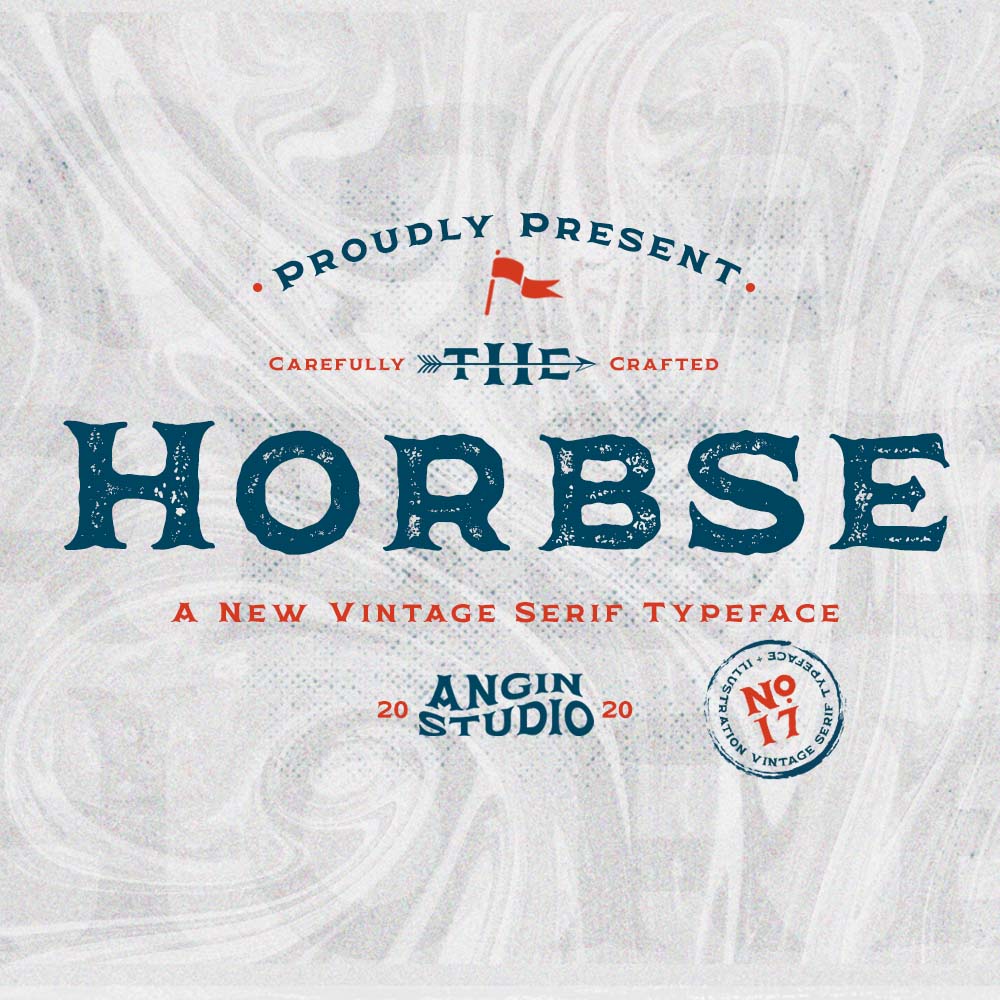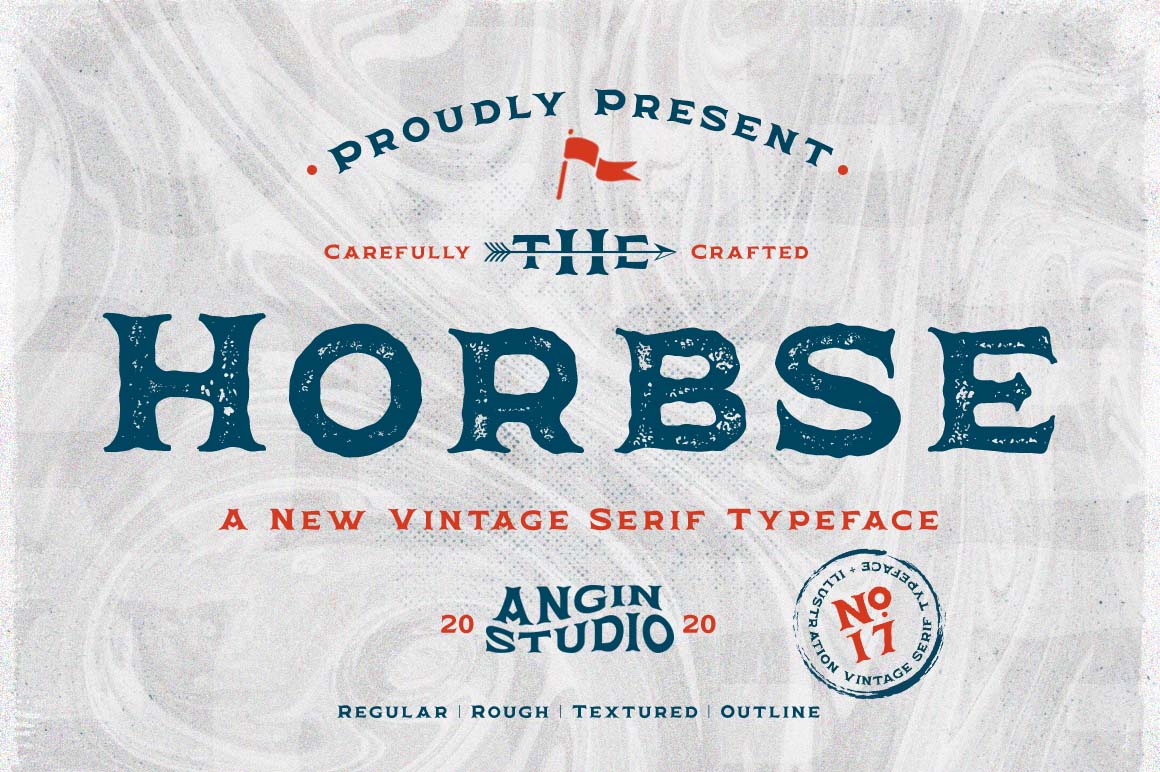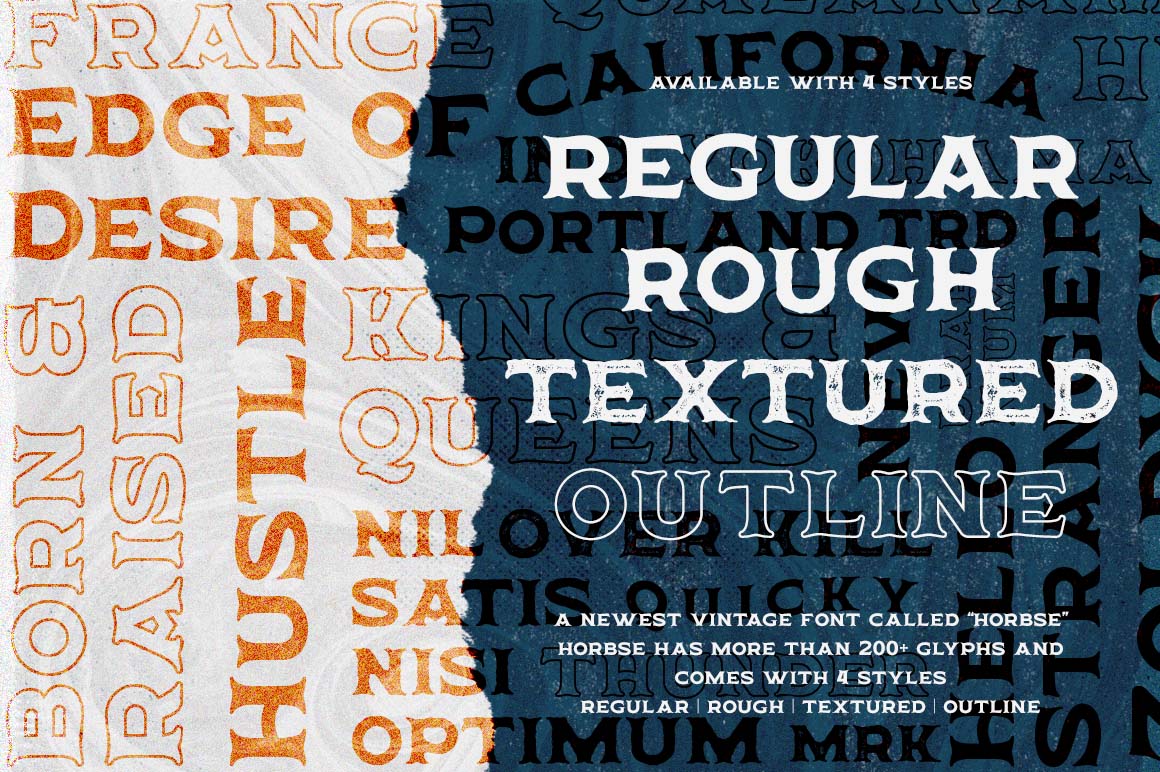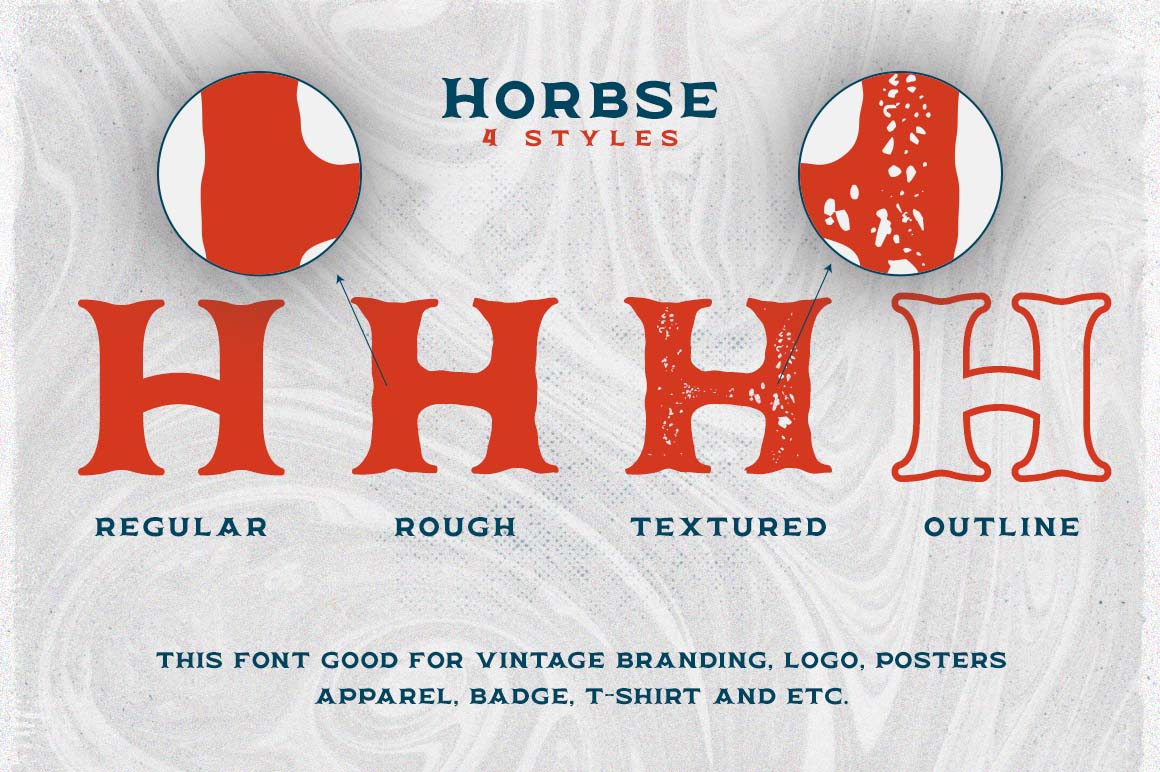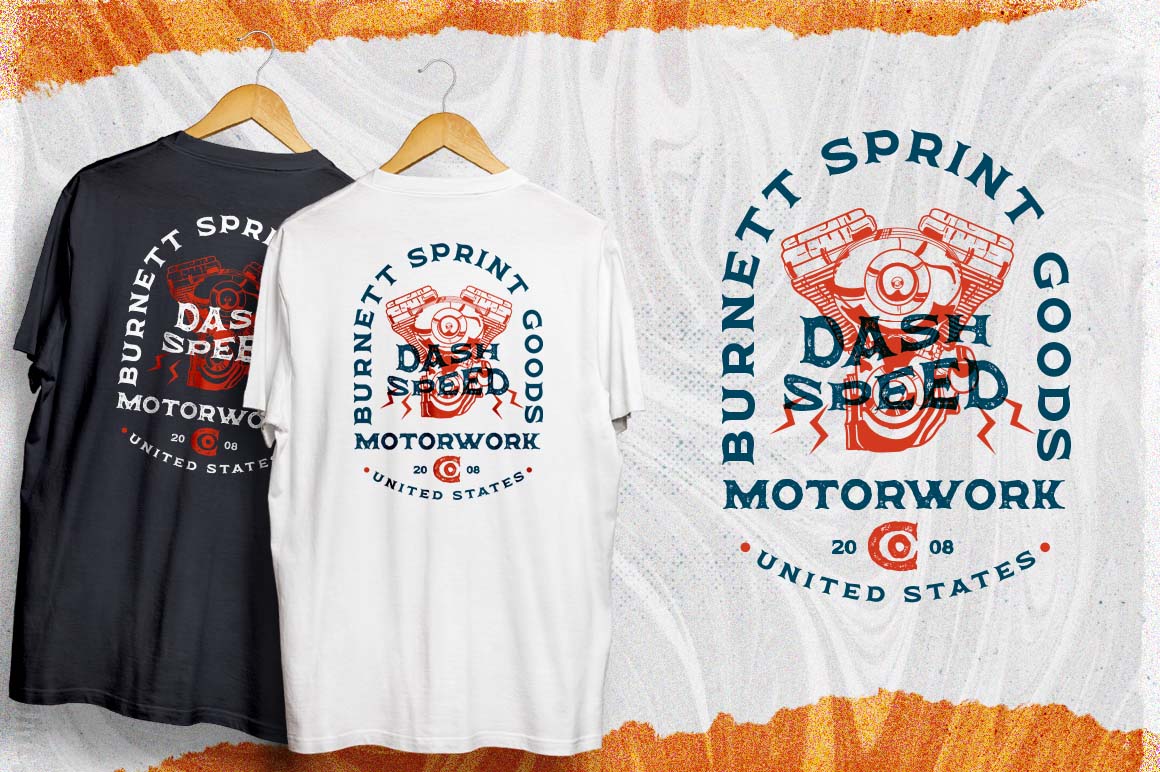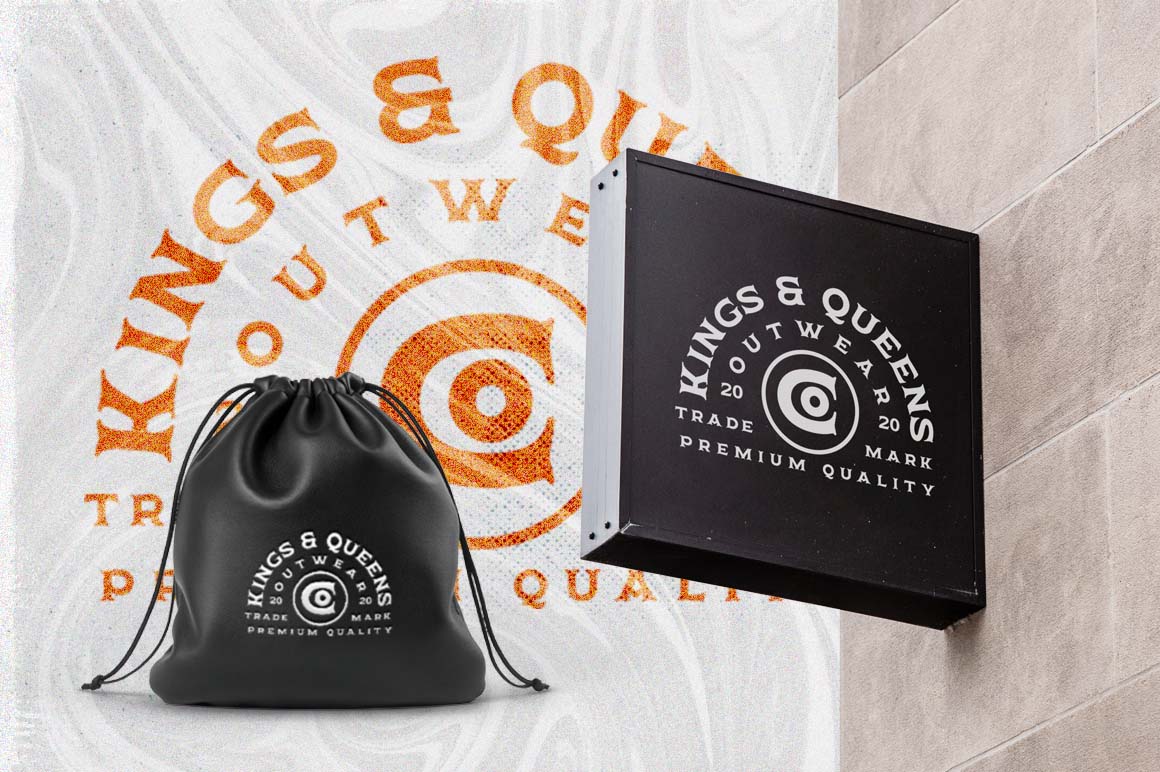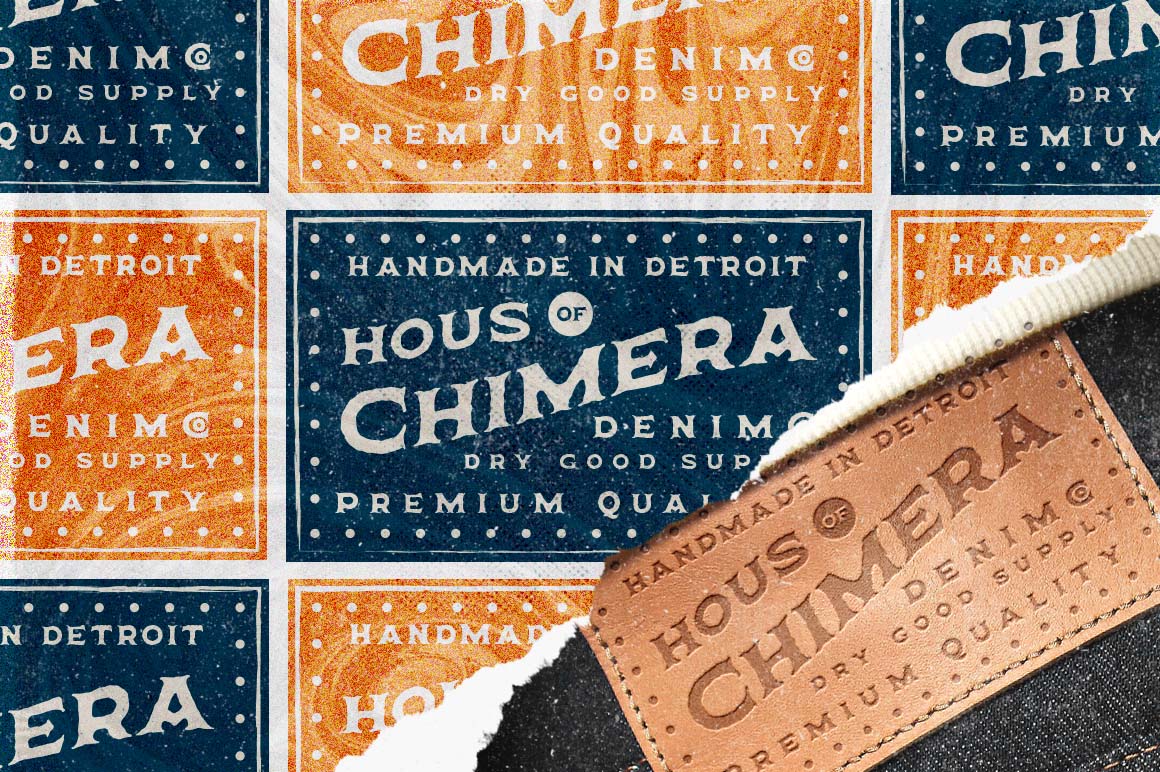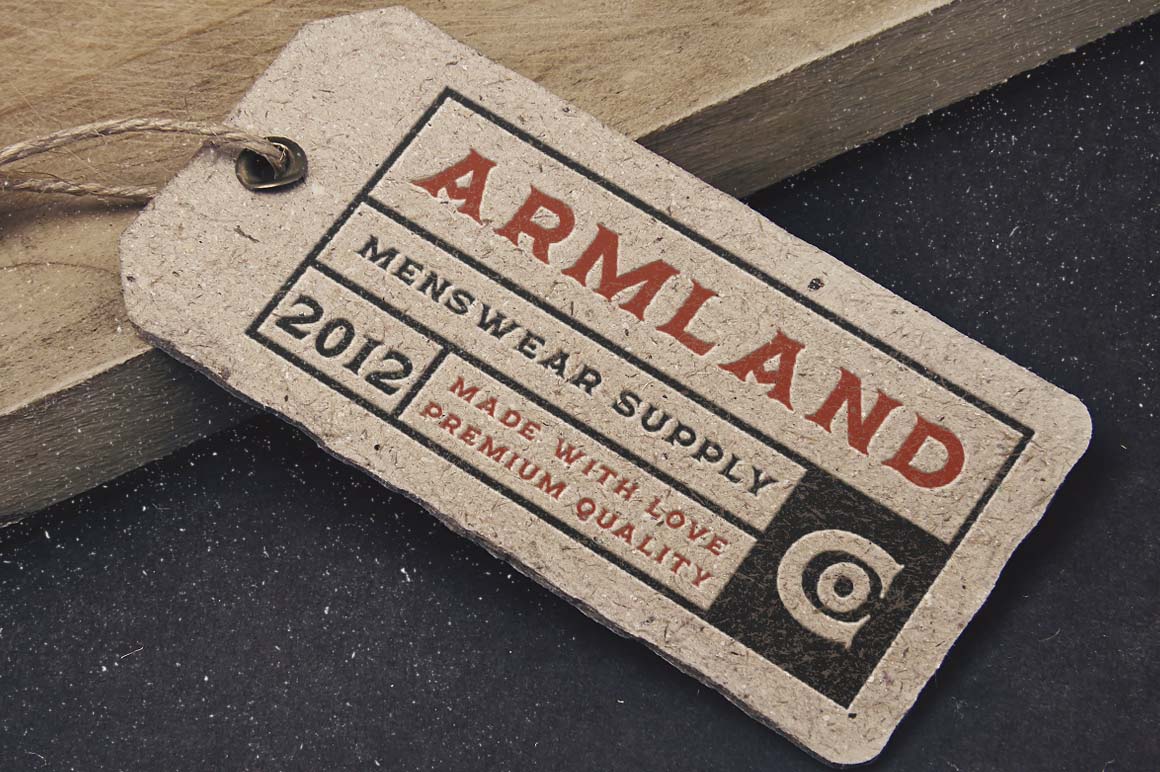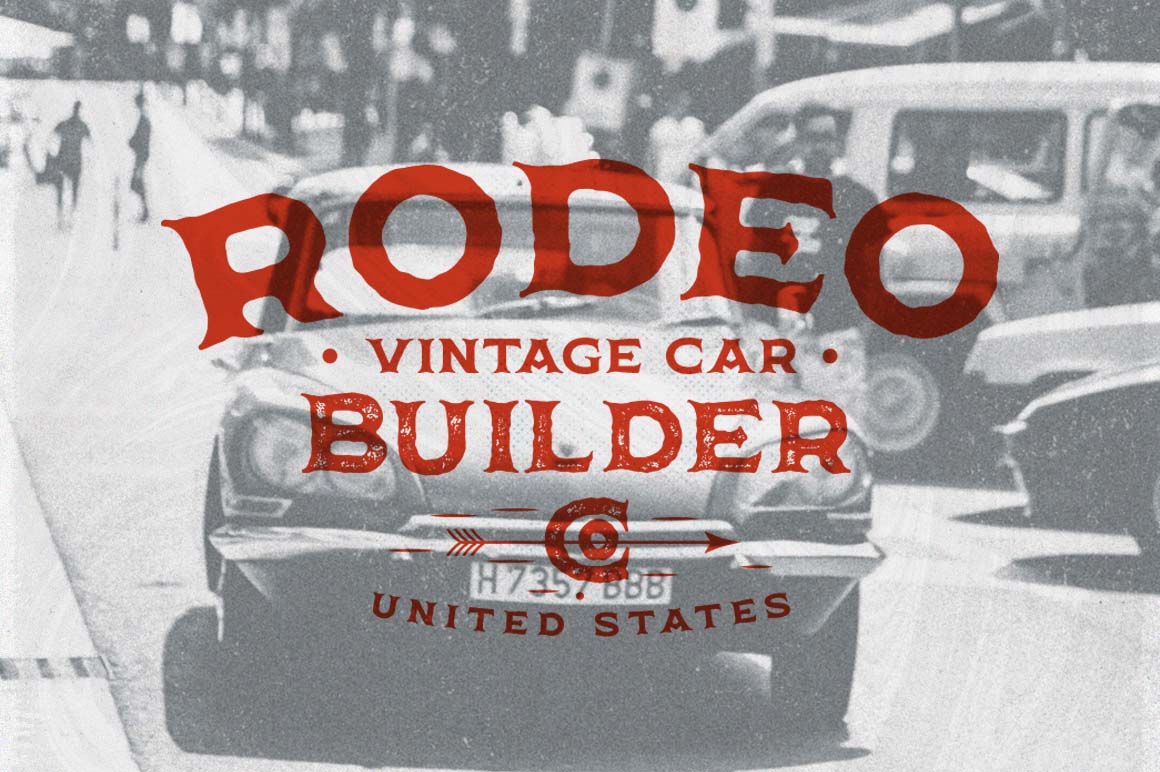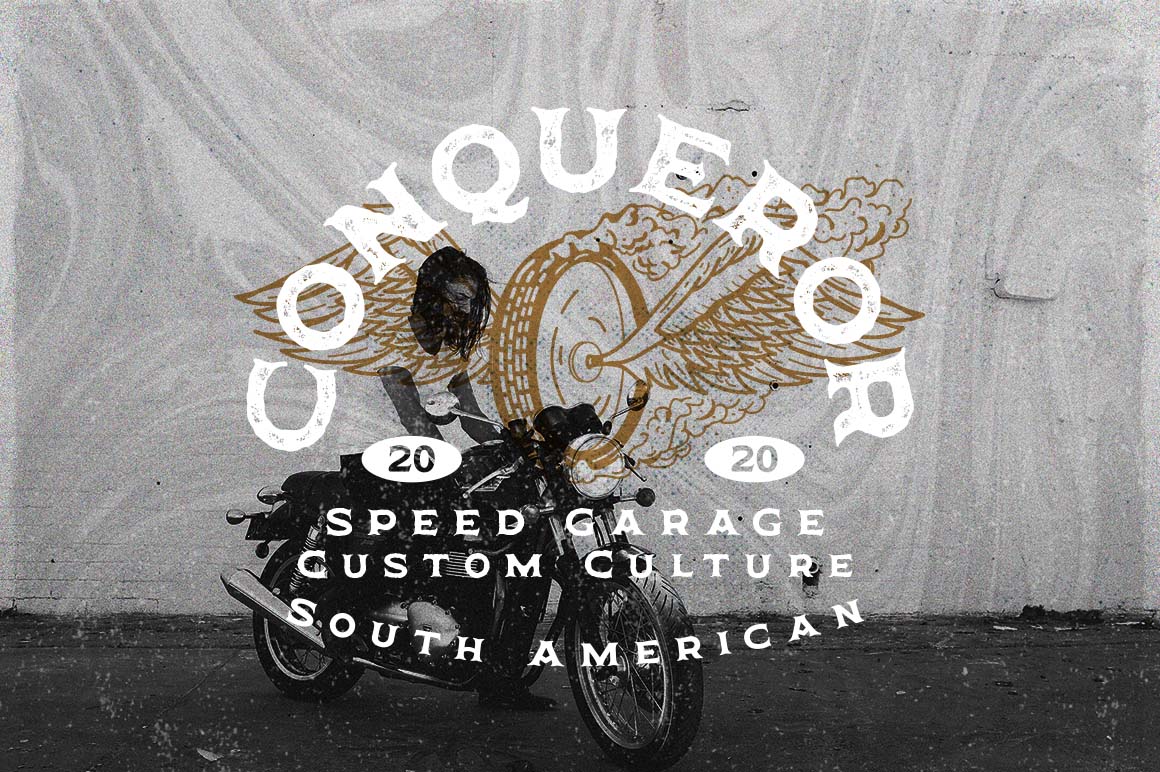
Horbse - Vintage Serif Font
Angin Studio
When we walked on the street or dive in internet, anything related to texturize vintage fonts always stole our attention, we love vintage and texturize typeface that much, do you?
Well, from our love of vintage texturize typeface, we decided to made more of it, never enough, today this new baby just enter the world, maybe your world.
Let us introduce you to Horbse, a vintage serif typeface inspired by old sign, vintage brand tag, and packaging. Horbse comes with 4 style and extra illustration, perfectly used for your T-shirt, Packaging, Posters, Logo, or having fun with it create things we didn’t expect with all your creativity.
Horbse is a vintage serif typeface inspired by old signage, vintage brand tags, and packaging design. It includes four styles—Regular, Rough, Textured, and Outline—in .otf, .ttf, .woff, and .woff2 formats, along with additional illustration files in .Ai and .eps, and supports 16 languages.